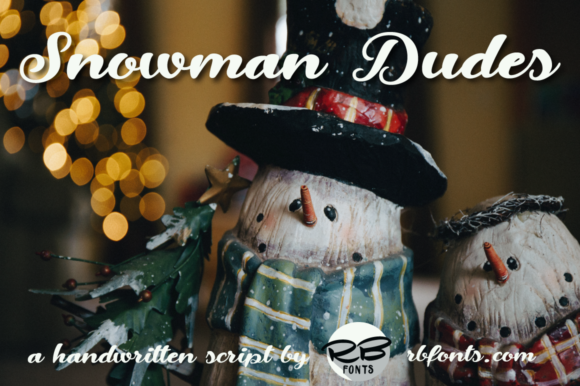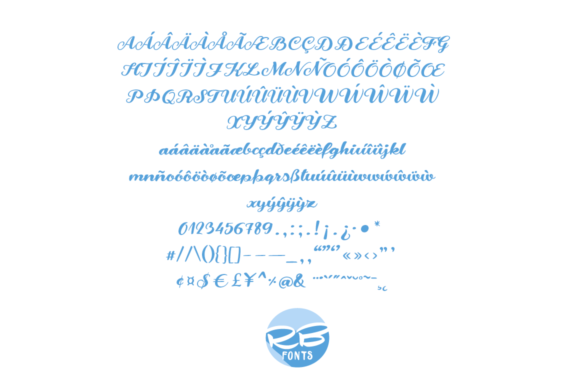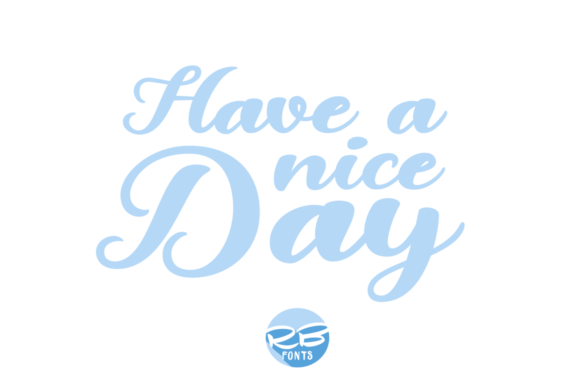
Snowman Dudes Font
About Snowman Dudes Font
Snowman Dudes is a handmade, happy and bold calligraphy font that you can use for all your creative winter projects. It is suitable for any branding, product packaging, invitation, quote, t-shirt, label, poster, logo that you wish to develop.